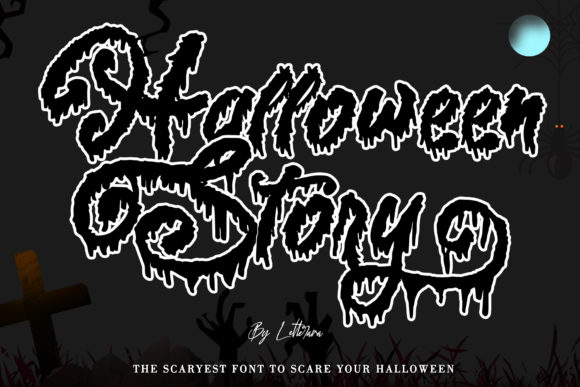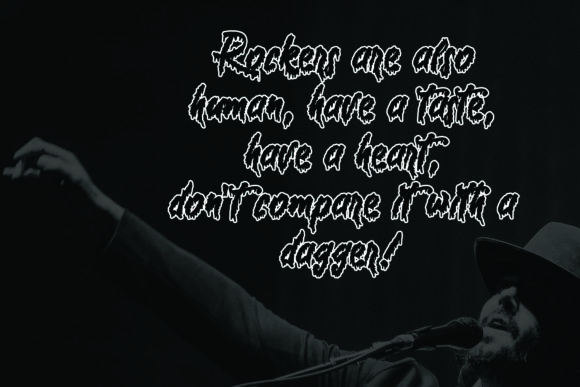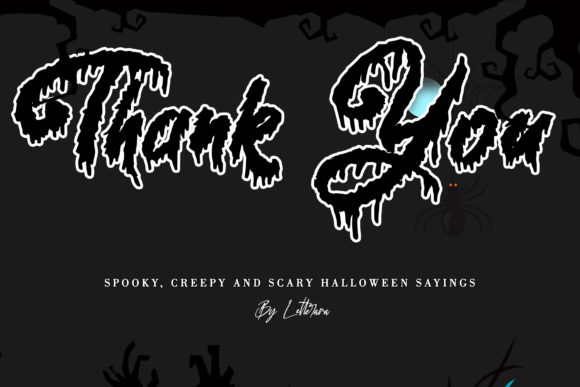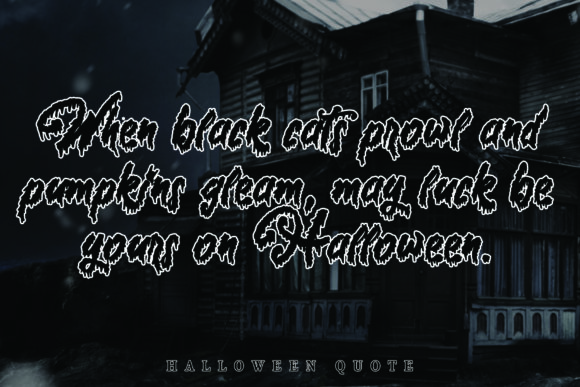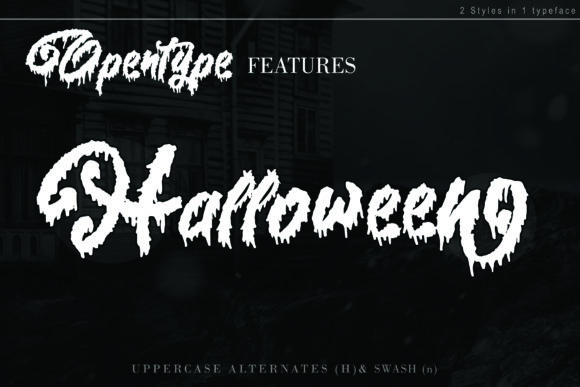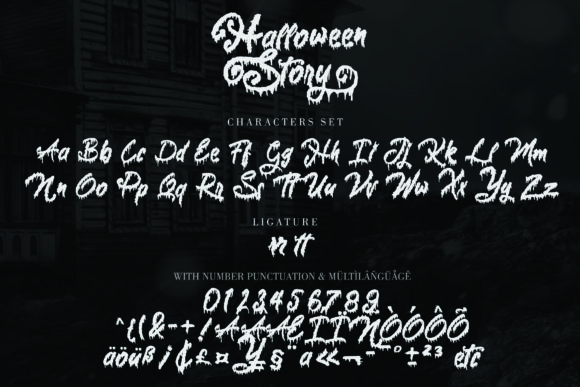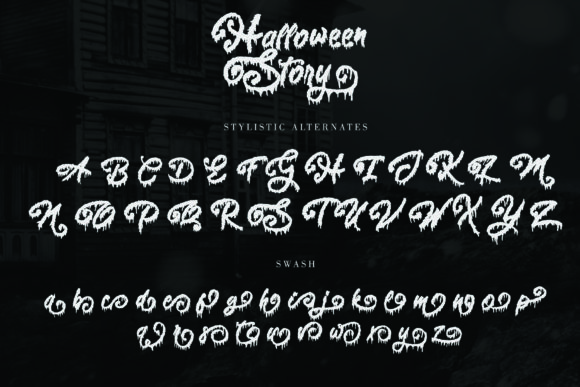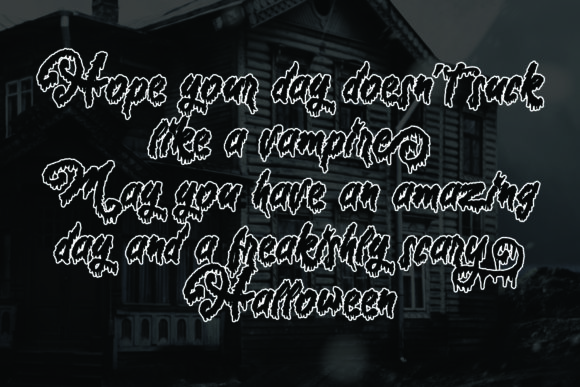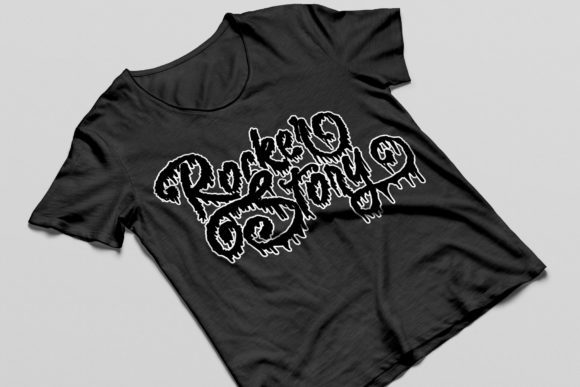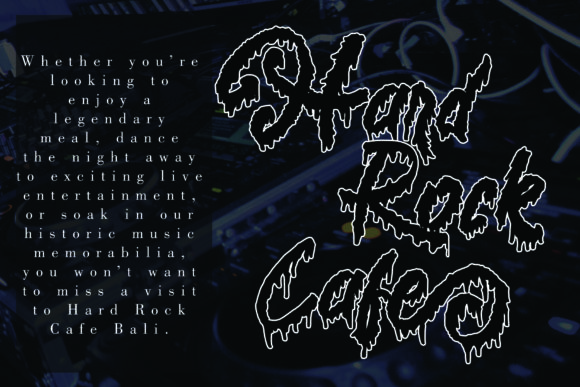
Halloween Story Font
About Halloween Story Font
Halloween Story is the ideal font for any Halloween project. Turn any horror-themed project into a real eye-catcher!